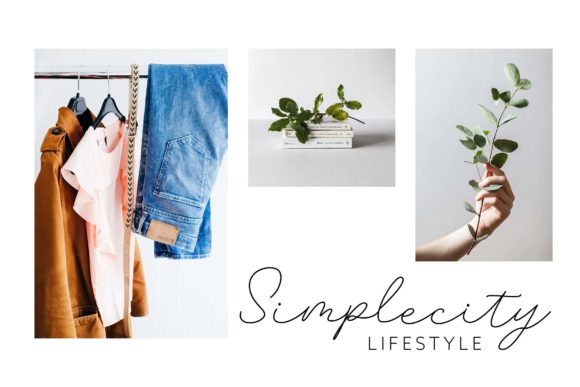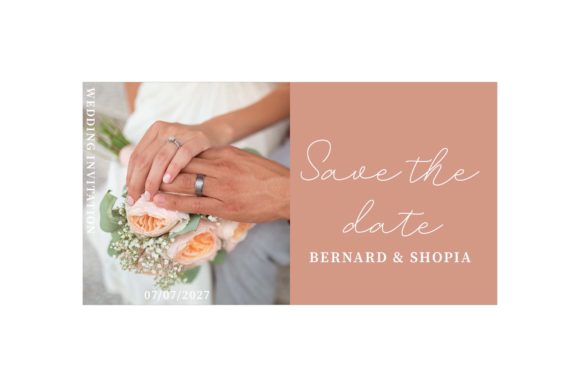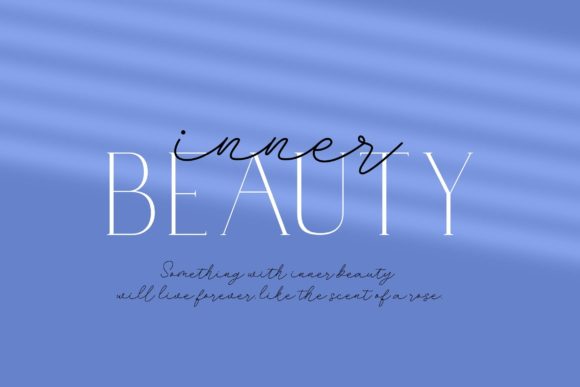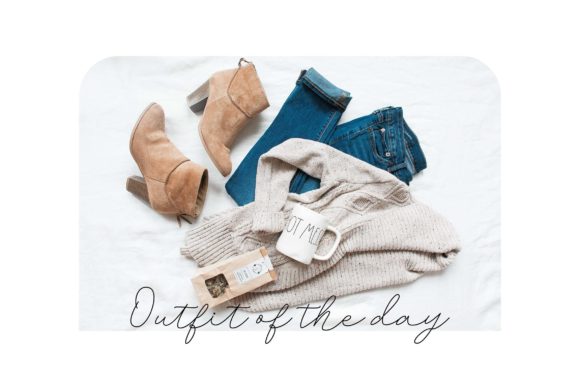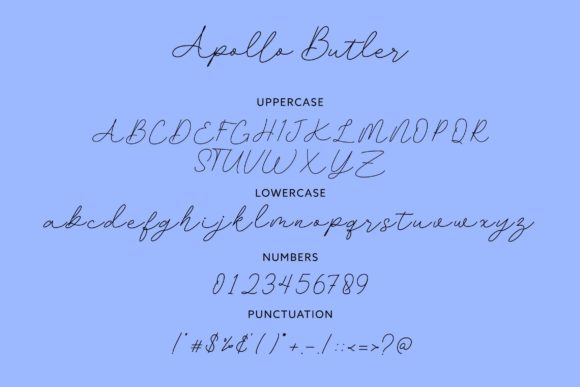
Introducing Apollo Butler Font: Elevate Your Creativity with Elegance
In the world of typography, a font can make all the difference in transforming a simple design into a masterpiece. For those seeking a touch of elegance and sophistication, the Apollo Butler Font is an exquisite choice. This thin lettered script font is carefully crafted to bring a sense of refinement and luxury to any creative project. Whether you’re a designer looking for the perfect font for Instagram or a crafter seeking calligraphy scripts for DIY projects, Apollo Butler is the ideal companion to turn your ideas into true works of art.
The Essence of Apollo Butler Font
Apollo Butler Font is characterized by its delicate and slender lines, which exude a sense of elegance and poise. The font’s design is inspired by classic calligraphy, with a modern twist that makes it versatile and adaptable to various creative applications. Its thin lettering allows for a high level of readability, making it perfect for use in a wide range of contexts, from digital media to print materials.
Key Features of Apollo Butler Font
- Thin lettered script font: Apollo Butler’s slender lines create a sense of sophistication and elegance, perfect for designs that require a touch of refinement.
- Elegant and refined: The font’s classic calligraphy inspiration and modern twist make it an excellent choice for projects that demand a high level of sophistication.
- High readability: Apollo Butler’s clear and delicate lines ensure that your message is conveyed with clarity, making it ideal for use in various creative applications.
- Versatile: This font is suitable for a wide range of projects, from Instagram designs and social media graphics to calligraphy scripts and DIY crafts.
Use Cases for Apollo Butler Font
Apollo Butler Font is an incredibly versatile font that can be used in a variety of creative projects. Here are some examples of how you can utilize this beautiful font:
- Instagram and social media graphics: Add a touch of elegance to your Instagram posts, stories, and graphics with Apollo Butler Font.
- Calligraphy scripts: Use Apollo Butler Font to create stunning calligraphy scripts for DIY projects, such as wedding invitations, greeting cards, and quotes.
- Branding and packaging: Elevate your brand’s visual identity with Apollo Butler Font, perfect for logos, labels, and packaging designs.
- Stationery and journals: Add a touch of sophistication to your stationery, journals, and planners with Apollo Butler Font.
Tips for Using Apollo Butler Font
To get the most out of Apollo Butler Font, here are some tips to keep in mind:
- Pair with contrasting fonts: Combine Apollo Butler Font with bold or sans-serif fonts to create visual interest and contrast.
- Experiment with colors: Try pairing Apollo Butler Font with pastel colors, metallic accents, or bold hues to add depth and personality to your designs.
- Pay attention to spacing: Ensure that your text is easily readable by adjusting the spacing between letters and lines.
Apollo Butler Font is a beautiful, thin lettered script font that can elevate any creative project with its touch of elegance and sophistication. With its versatility, readability, and refined design, this font is perfect for designers and crafters looking to add a level of luxury to their work. Whether you’re creating Instagram graphics, calligraphy scripts, or branding materials, Apollo Butler Font is an excellent choice to turn your ideas into true works of art.